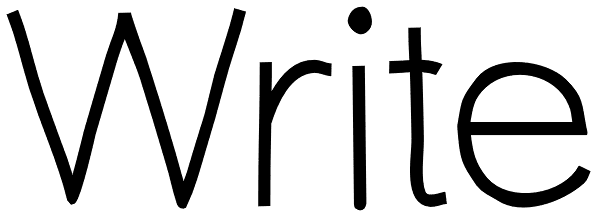
Write
Write is a handwriting font, more like neat print than a flowing cursive script, which renders it highly readable and almost like a formal font, but still retaining the informality of handwriting. Also there are some "special effects" varieties.